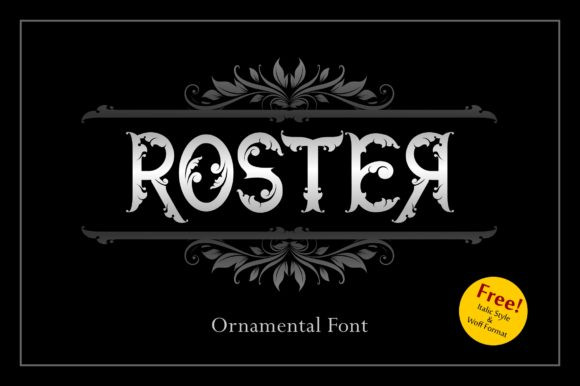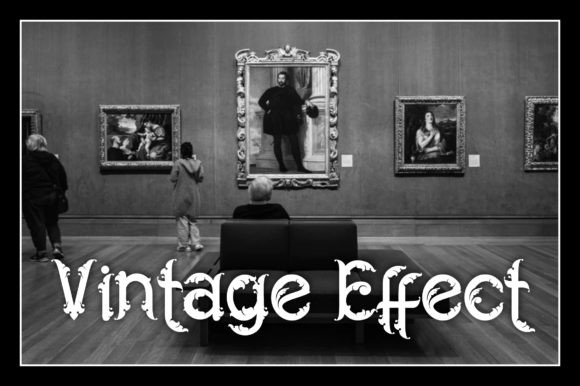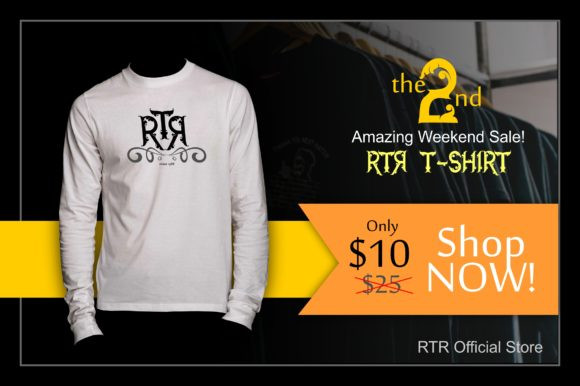
Roster Font
Roster is a victorian blackletter font. Elegant and imposing, this font will make each of your designs look out of this world. Use this font for your designs and explore its endless possibilities.https://www.creativefabrica.com/product/roster-3/